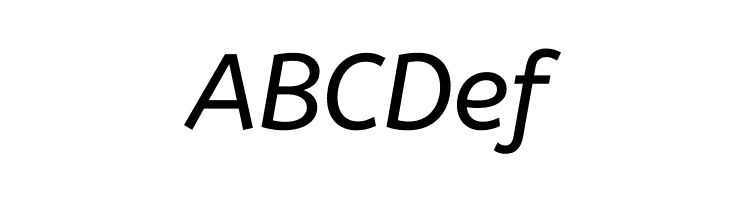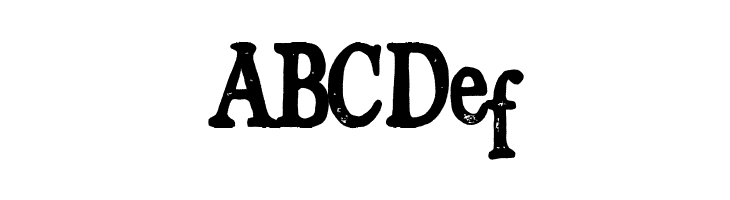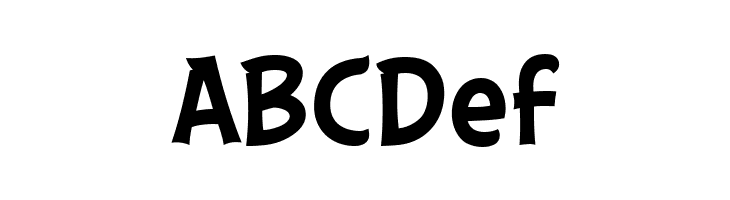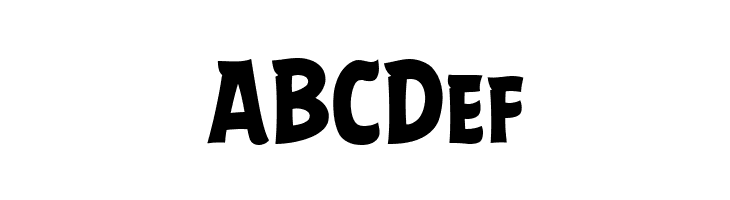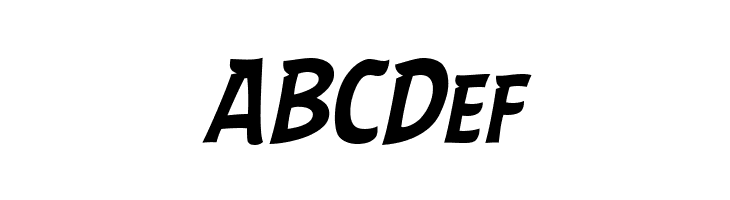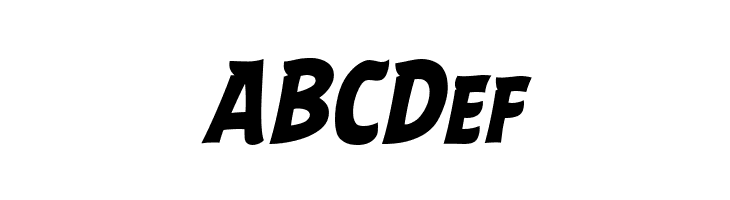
A playful, handwritten-style font with rounded, connected characters.
A playful and elegant script font with smooth, connected characters.
A modern stencil font with bold, structured uppercase and elegant lowercase letters.
A modern stencil-style font with a blend of bold uppercase and cursive lowercase letters.
A modern, clean sans-serif font with balanced spacing and consistent stroke width.
A modern, italic font with clean lines and excellent readability.
A clean, modern sans-serif font with balanced proportions and excellent readability.
A modern, italic sans-serif font with balanced proportions and a dynamic style.
A bold, distressed serif font with a vintage, textured appearance.
A modern, geometric sans-serif font with balanced spacing and clear characters.
A modern, geometric sans-serif font with clean lines and balanced spacing.
An elegant script font with high contrast and decorative flourishes.
A modern, geometric font with clean lines and a professional appearance.
A playful, casual handwritten font with smooth curves and a friendly feel.
A sophisticated script font with fluid, cursive strokes and elegant details.
A bold, hand-drawn font with irregular strokes and dynamic, artistic flair.
A bold, dynamic font with exaggerated curves and angles, perfect for eye-catching designs.
A cursive, handwritten-style font with elegant, flowing strokes.
A lively and flowing script font with cursive, connected letterforms.
A bold, angular font with high contrast and geometric elements.
Lively handwritten script font.
An elegant script font with flowing, cursive style and intricate flourishes.
A bold, decorative font with artistic and intricate designs.
A decorative font with floral monogrammed letters and a whimsical, elegant style.
A bold, decorative slab serif font with unique cut-out details.
A modern, rounded sans-serif font with smooth curves and a clean, approachable design.